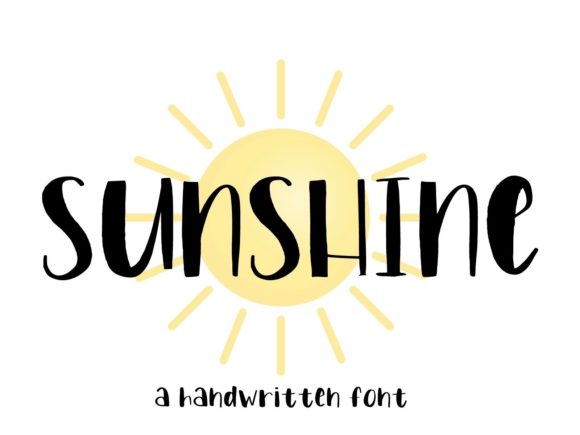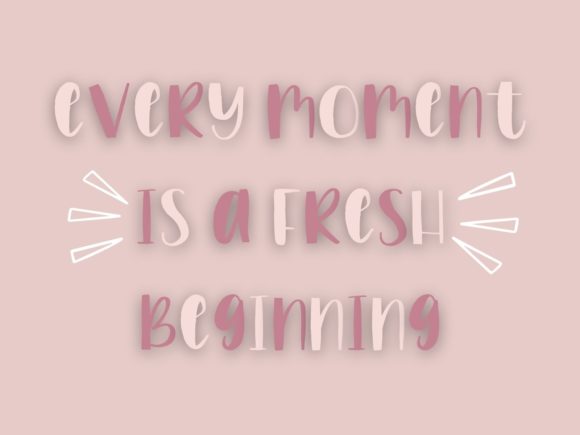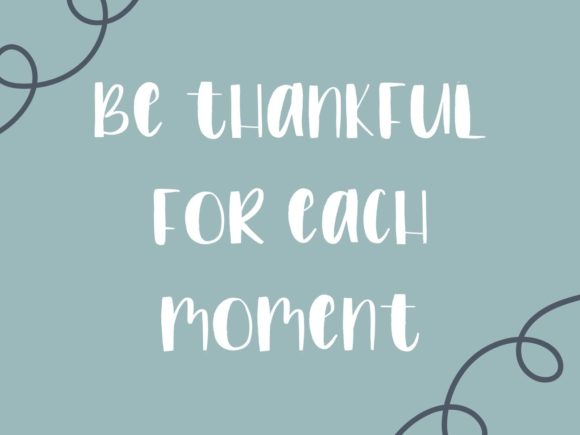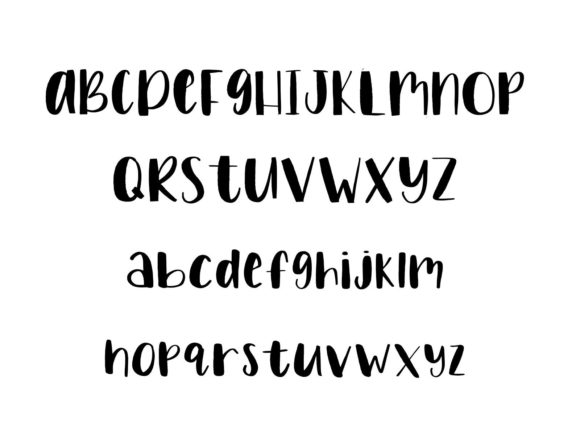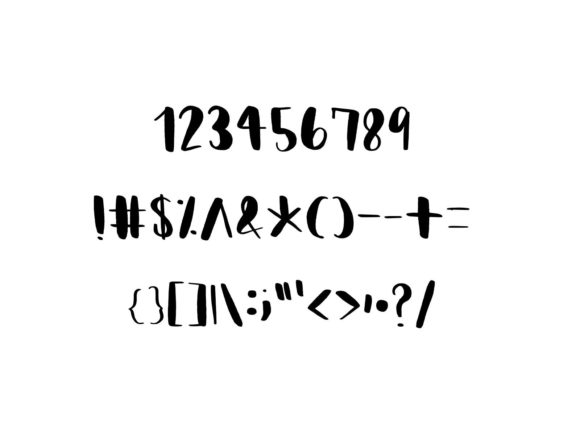
Sunshine Font
About Sunshine Font
Sunshine is a fun handwritten font perfect for all your crafting or business needs! With a chic and thin style, this typeface can fit almost any creative idea!